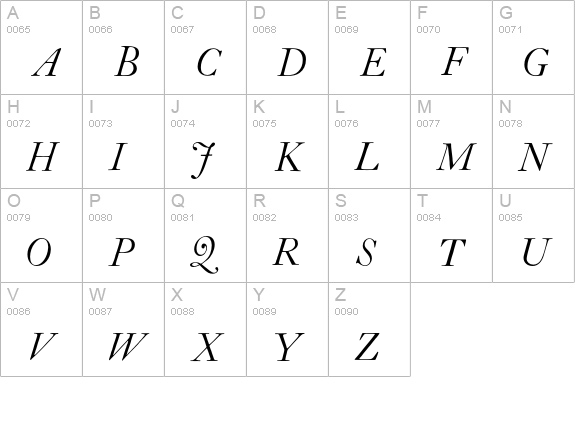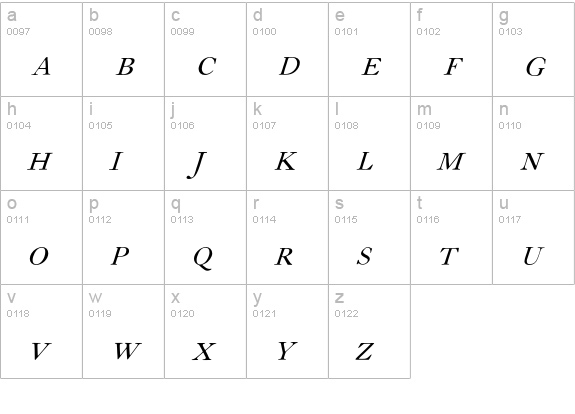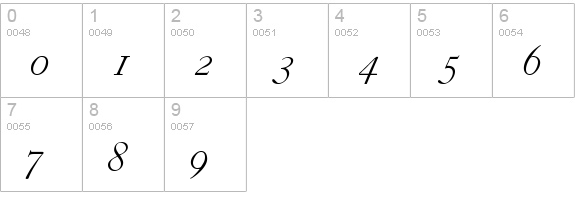
CaslonZH-SC-Italic Font Details
CaslonZH-SC-Italic is a distinctive, italic variant in the CaslonZH typeface family \xE2\x80\x94 well suited to design and typography projects.
CaslonZH-SC-Italic is a sophisticated and elegant font that exudes a sense of timeless charm and refinement. With its slanted and graceful italic style, this typeface adds a touch of sophistication to any design project. The delicate strokes and fluid curves of CaslonZH-SC-Italic create a sense of movement and grace, making it perfect for adding a touch of class to invitations, wedding stationery, and luxury branding. What sets CaslonZH-SC-Italic apart is not just its aesthetic appeal, but also the fact that it is available for free download at FontsMarket.com. This means that you can effortlessly elevate your designs with this exquisite font without breaking the bank. Whether you're a professional designer looking for a versatile typeface or a hobbyist looking to enhance your creative projects, CaslonZH-SC-Italic is a must-have addition to your font collection. Download CaslonZH-SC-Italic for free today at FontsMarket.com and unleash the beauty and elegance of this stunning font in your next project. Elevate your design with the timeless appeal of CaslonZH-SC-Italic and make a lasting impression with every letter.